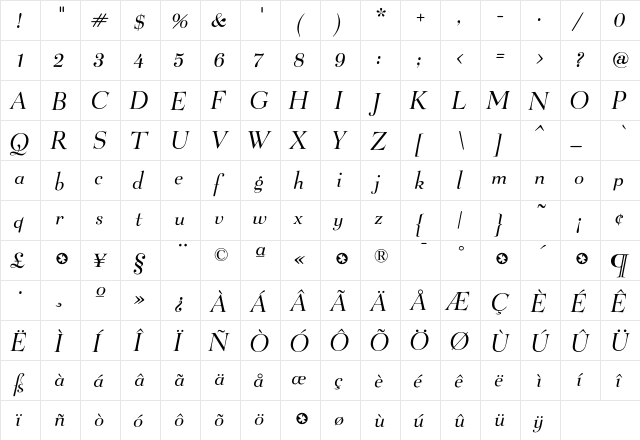
BeLucianBookItalic Regular Font Preview
BeLucianBookItalic Regular
Design Context for BeLucianBookItalic Typeface
BeLucianBookItalic takes a measured approach to typography — its balanced proportions and neutral character make it a reliable workhorse for both digital and print work. The dynamic lean of this cut emphasises speed and emphasis in any layout.
Pro Tip: Use BeLucianBookItalic for emphasis, pull quotes, and subheadings where its slanted energy can add rhythm to the layout.